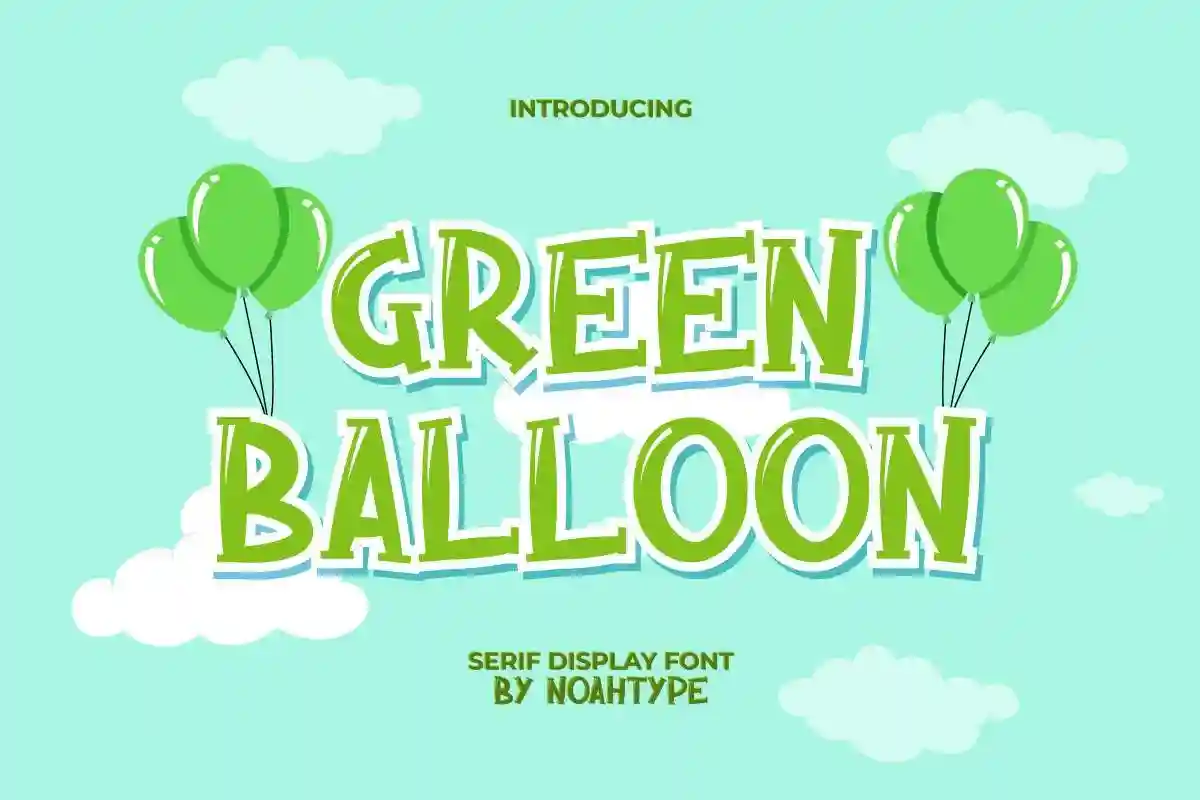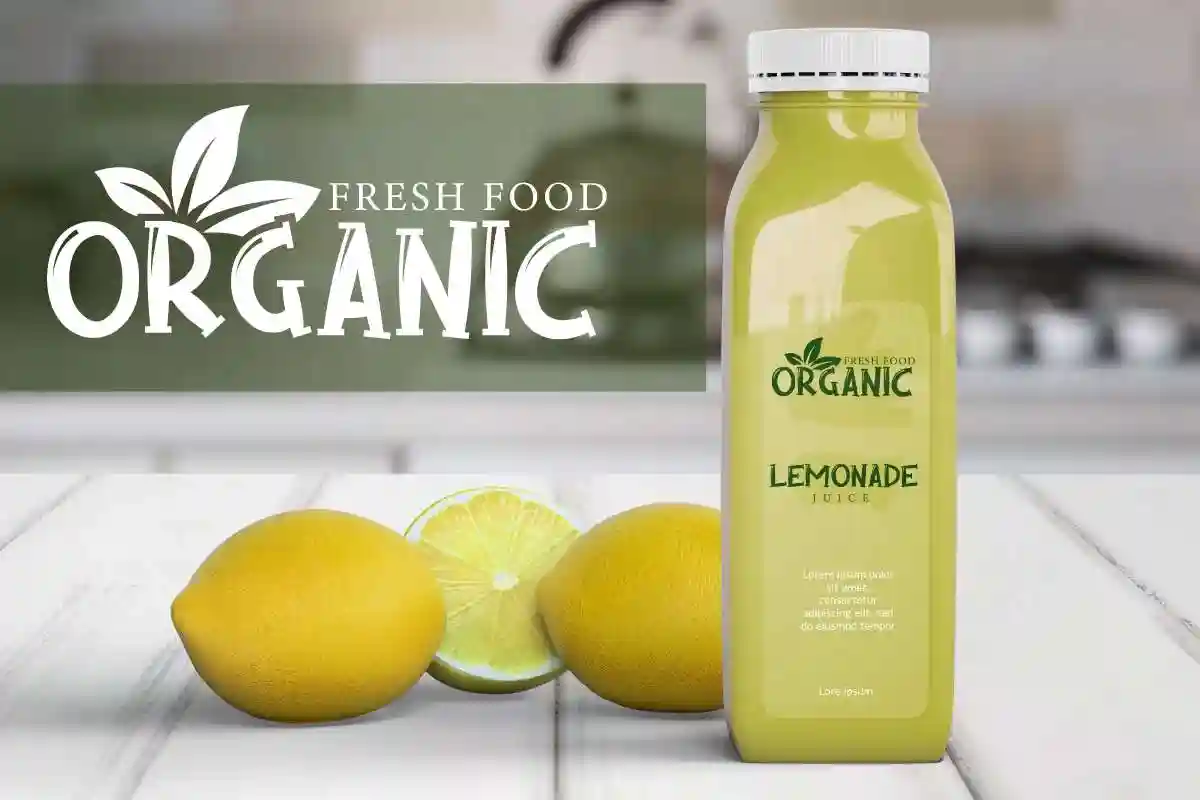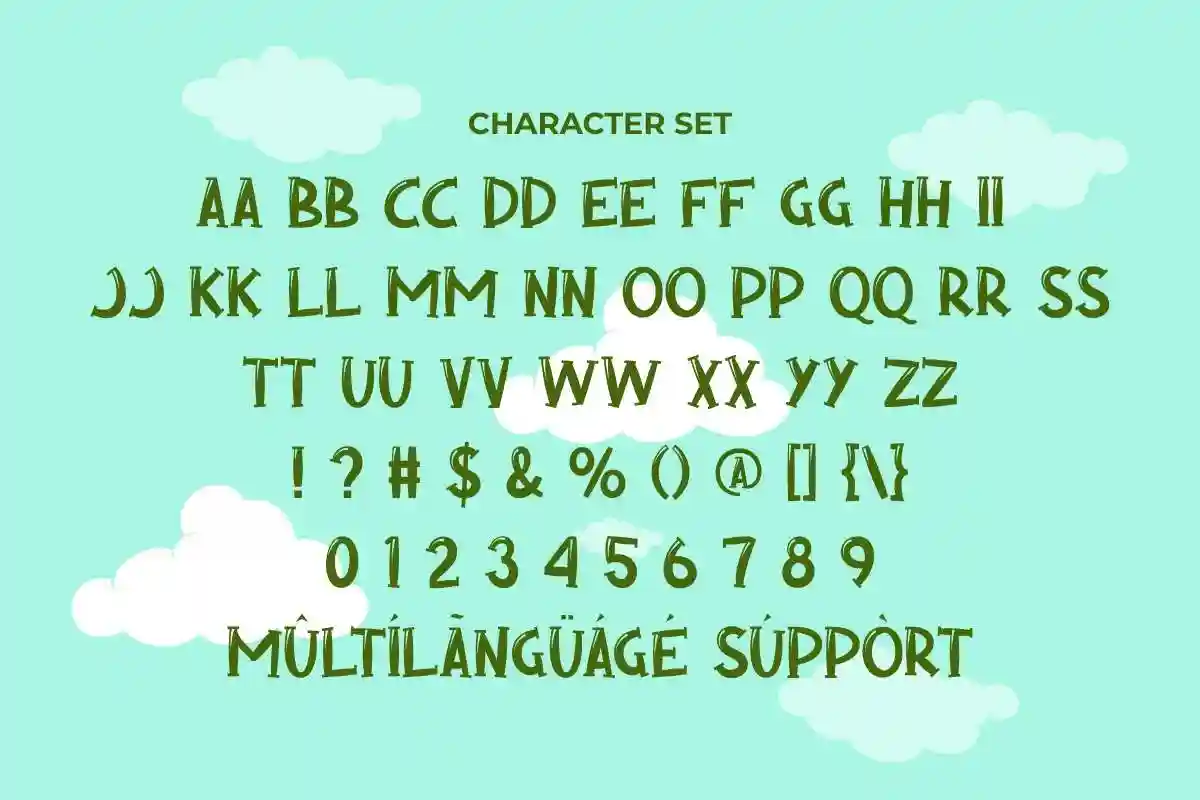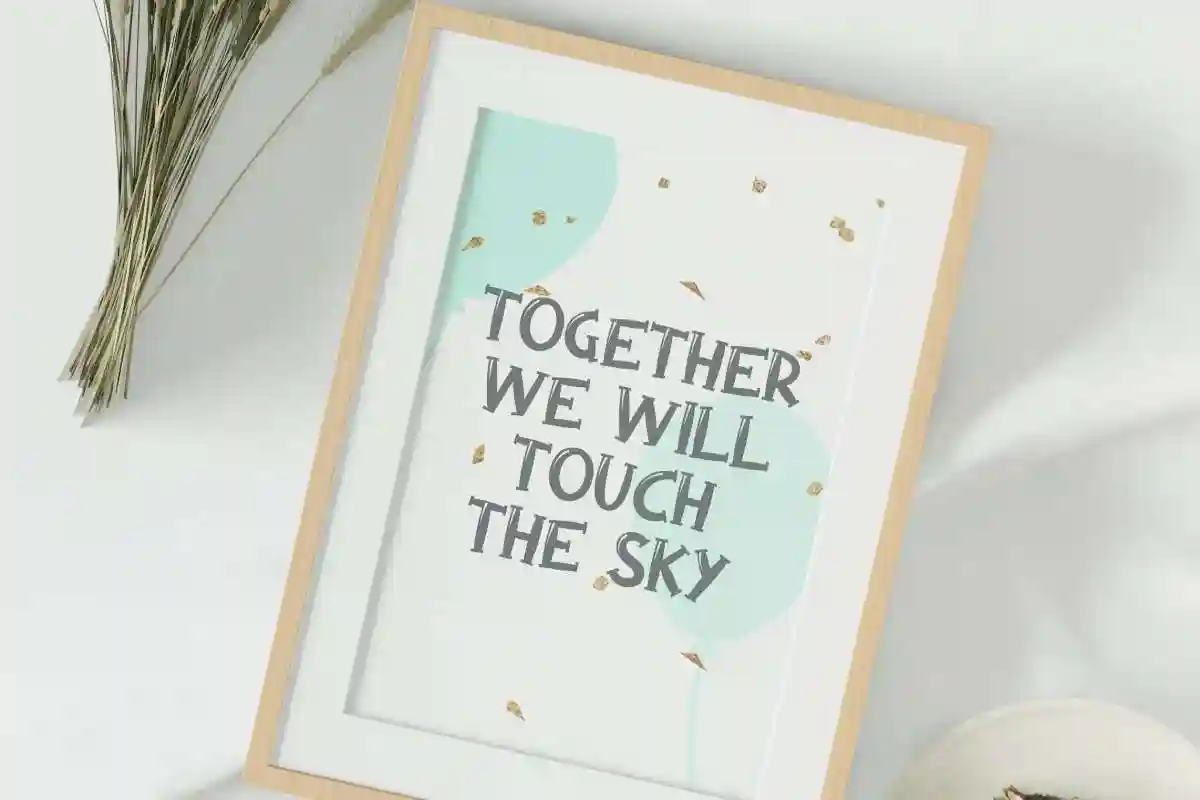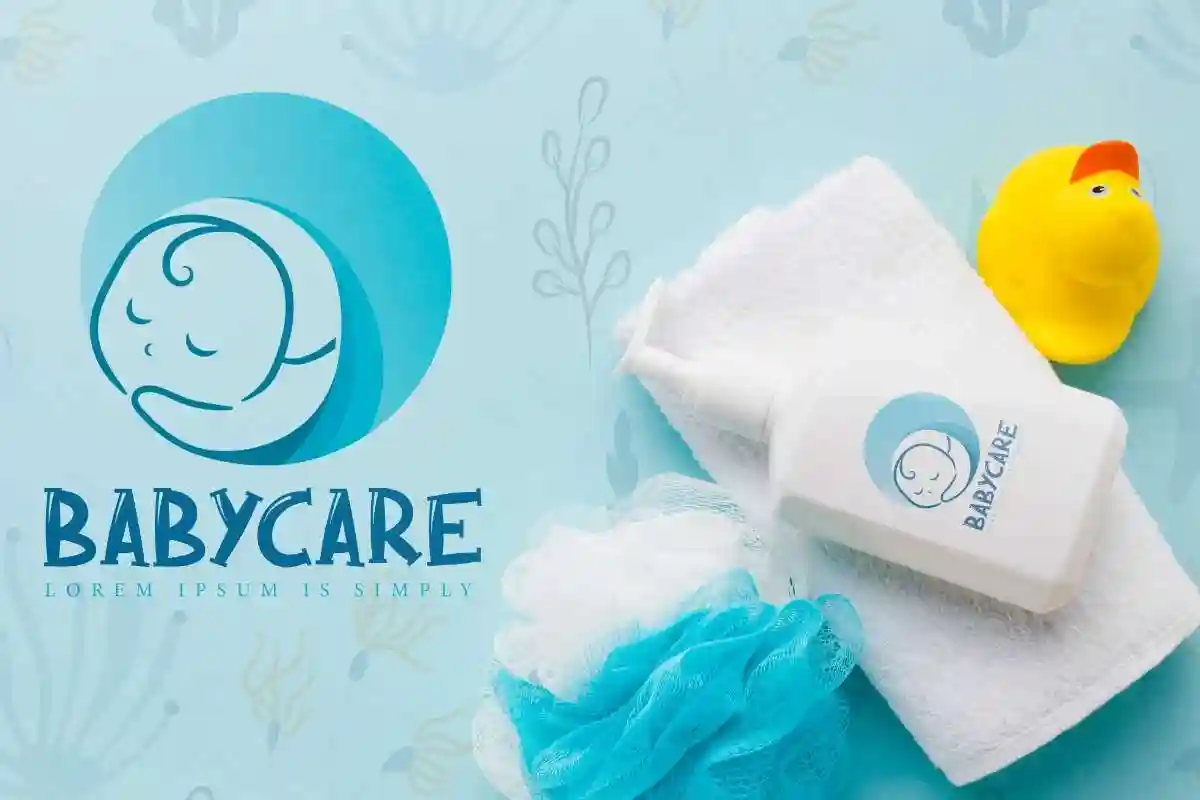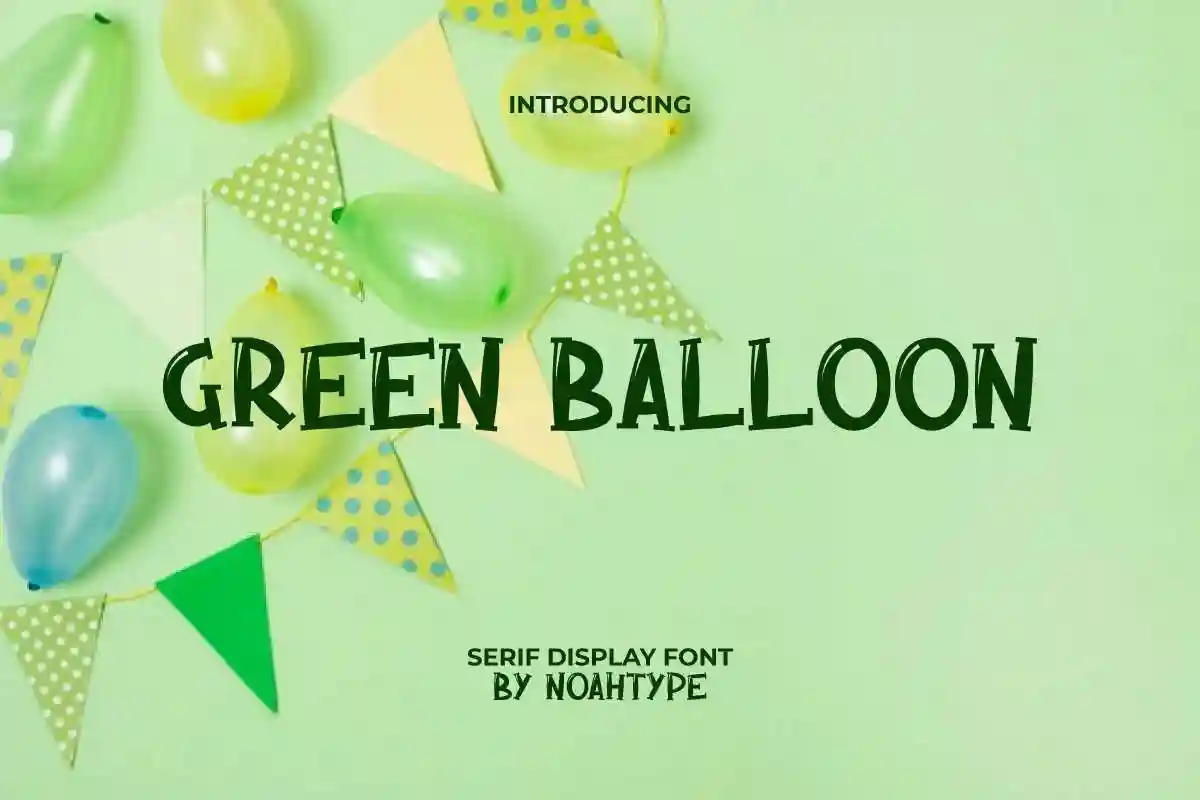
Green Balloon Font is playful display font with cartoon style inspired from children playful experience. This font is inspired by the shape of a balloon that is inflated and still easily to read. It will be perfect for industry such as baby product design, birthday party, carnival, comic, fashion, food or drink brands, and more.
Green Balloon Font includes full set of ALL CAPS Basic Characters for Uppercase and Lowercase, Numerals Punctuation to make it flawless characters. This font would be perfect for your projects that need fresh look. Also can add more funny fonts to perfect your amazing projects. It will be amazing for any projects including: branding logo, business card, creating logo, custom mugs, invitation, label, logotype, product packaging, quote, signage, typography, and many more.
Introducing Green Balloon Serif Display Font – a unique blend of vintage charm and modern playfulness, crafted to make your designs shine. With bold serif characters and whimsical curves, this display font is perfect for grabbing attention while maintaining a touch of sophistication.
Its carefully designed uppercase and lowercase letters, combined with stylish alternates and ligatures, create endless creative possibilities. This makes it an ideal choice for both professional branding and personal design projects.